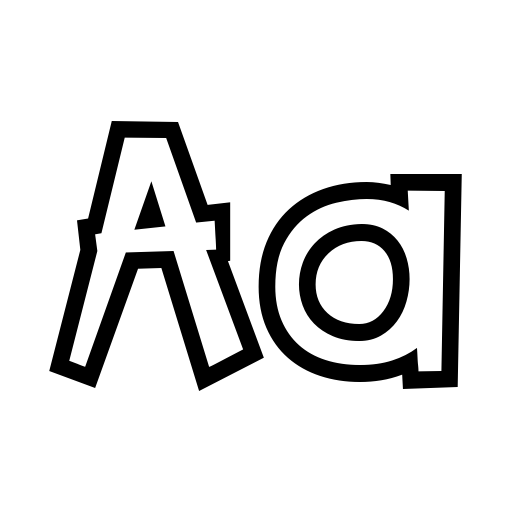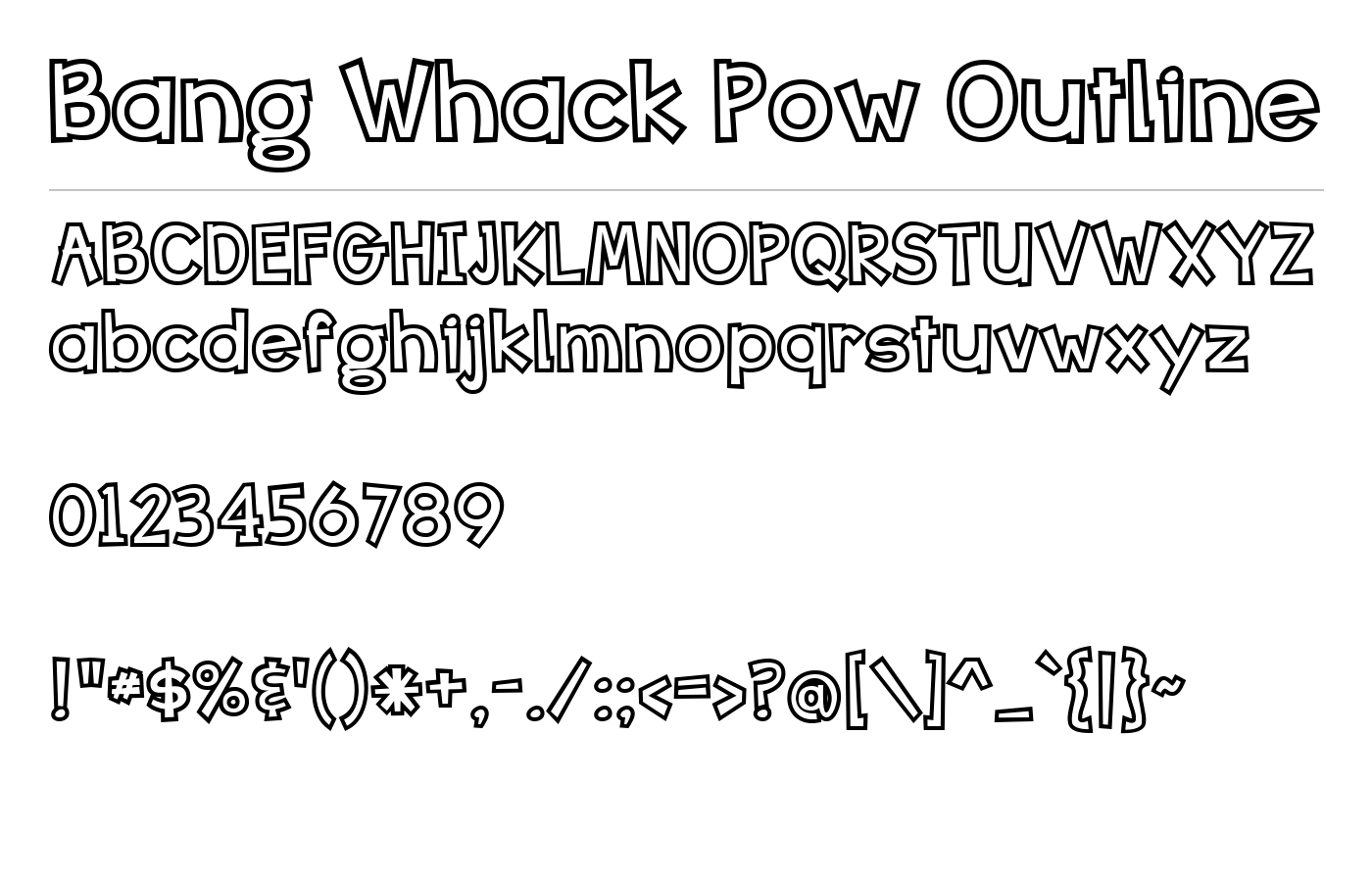
Bang Whack Pow Outline is a playful, hand-drawn sans serif font featuring irregular, outlined letterforms with a bold, cartoon-like charm. Its lively and quirky style makes it perfect for fun, creative projects like children’s books, comic titles, posters, and casual branding where a whimsical and energetic feel is desired. This font stands out best in headlines and display use, adding a dynamic and friendly personality to any design.
Bang Whack Pow Outline Font
About Bang Whack Pow Outline Font
| Font family | Bang Whack Pow Outline Font |
| Designer | Brittney Murphy |